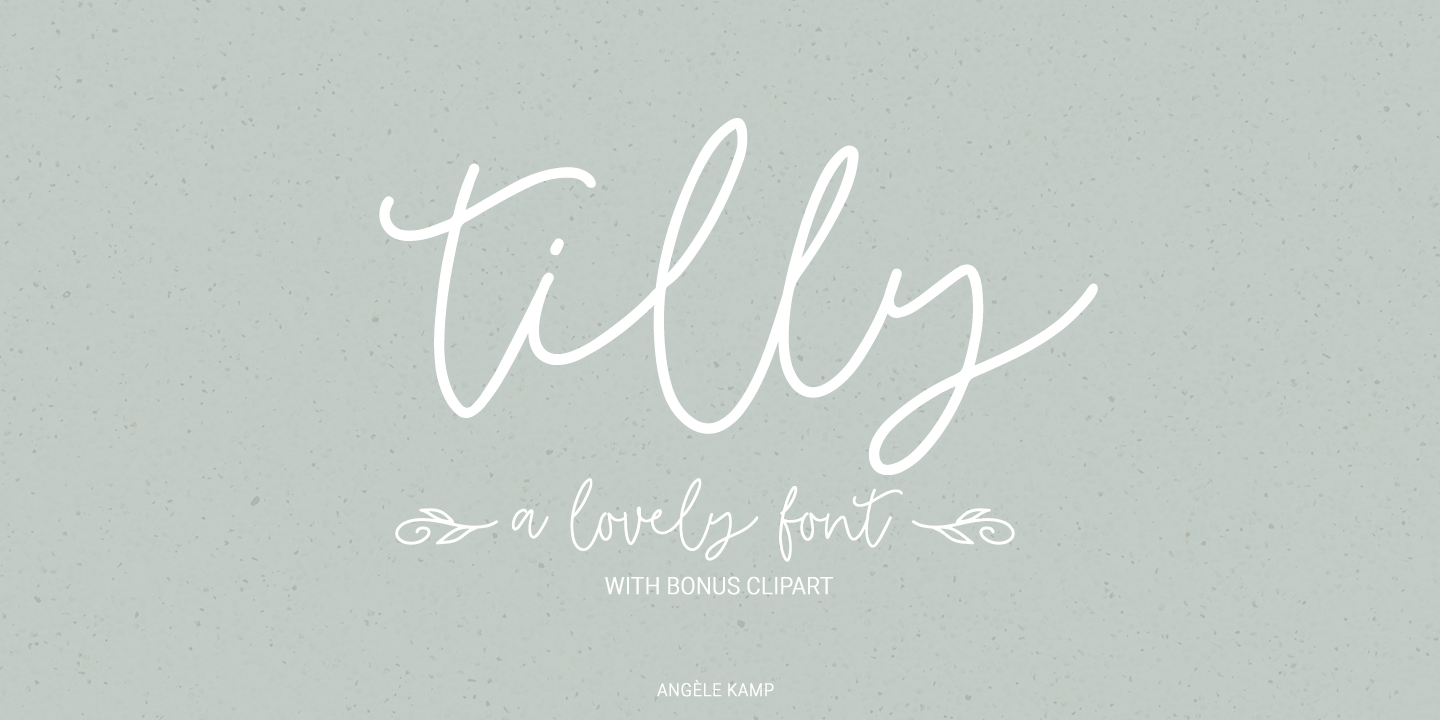
The Tilly Font is a delightful and versatile typeface, perfect for infusing your designs with a friendly, approachable, and slightly whimsical touch. Imagine this font being used for children's book illustrations, adding a playful vibe to educational materials, or bringing a cheerful character to product packaging aimed at a younger audience. Its approachable design makes it an excellent choice for branding for cafes, bakeries, or small businesses seeking a warm and inviting aesthetic. Tilly Font is also wonderfully suited for social media graphics, personal blogs, and any project where a touch of warmth and sincerity is desired.
What makes Tilly Font so exciting is its unique blend of handcrafted charm and effortless readability. It possesses an inviting character that instantly makes designs feel more personal and engaging. The gentle curves and slightly irregular baselines give it an authentic, human touch, distinguishing it from more rigid, geometric fonts. This font doesn't just convey information; it communicates a sense of joy and approachability, making your message resonate with genuine warmth. Its ability to maintain clarity while exuding a distinct personality makes it a go-to choice for designers looking to create memorable and heartfelt visual experiences.
The Tilly Font family typically offers a range of options to give designers ample creative freedom. While a core Regular weight is standard, you might also find accompanying weights such as Light for a more delicate touch, or Bold for increased emphasis on headings and key information. Sometimes, an Italic version might be available to add a subtle variation in style. These different weights and styles allow for great flexibility in creating visual hierarchy and ensuring that Tilly Font can be adapted across various design elements while maintaining a cohesive and appealing aesthetic. For those searching for the charming Tilly Font Free Download, the available family members will surely unlock a world of design possibilities.